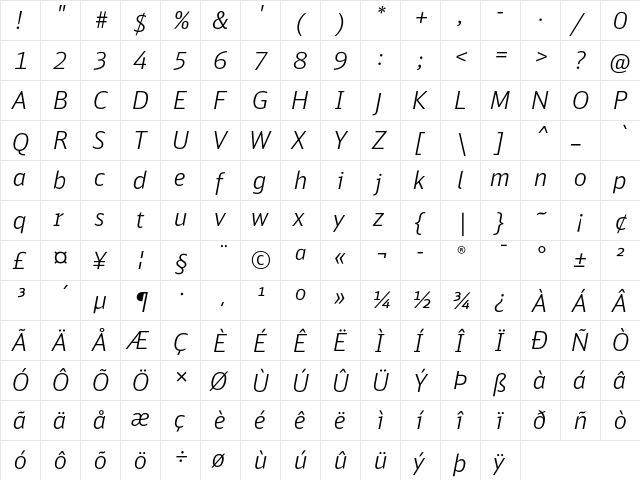
DB Head Alternate Light Italic
Design Context for DB Head Alternate Typeface
DB Head Alternate offers clean, dependable letterforms without strong stylistic allegiance, making it a practical choice for designers who need flexibility. The dynamic lean of this cut emphasises speed and emphasis in any layout. The delicate stroke weight brings airiness and refinement to layouts.
Pro Tip: Use DB Head Alternate for emphasis, pull quotes, and subheadings where its slanted energy can add rhythm to the layout.